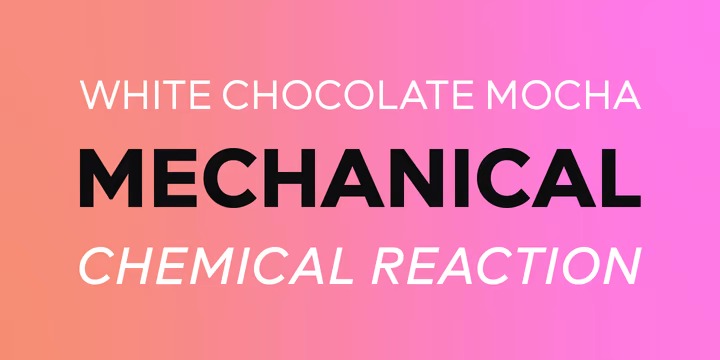
Acherus Feral Font
Acherus Feral Sans Serif Font
This font is a Sans serif family that has a strong base of geometric shapes. Made from font designer named Horizon Type. In this new version all sharp edges are flattened and rounded corners are sharpened. Alternative character “G” and optional “t” character have been added. Some of the characters like “A,K,M,N,Q,R,V,W,Z,v,w,z” have been changed completely for the stability of the typeface, in this way it looks more confident and serious. As you can see on the banners, Feral is excellent choice for many platform needs. For further information please check the pdf specimens.